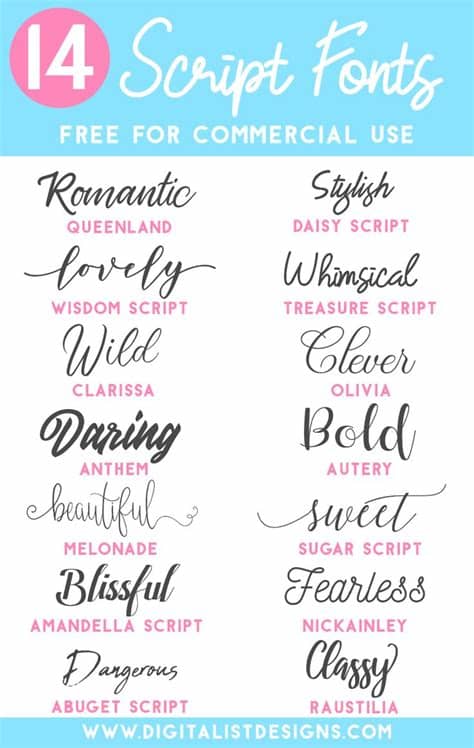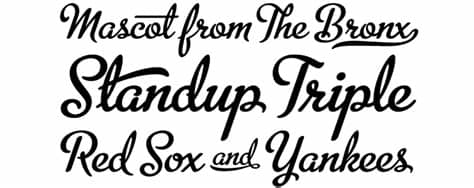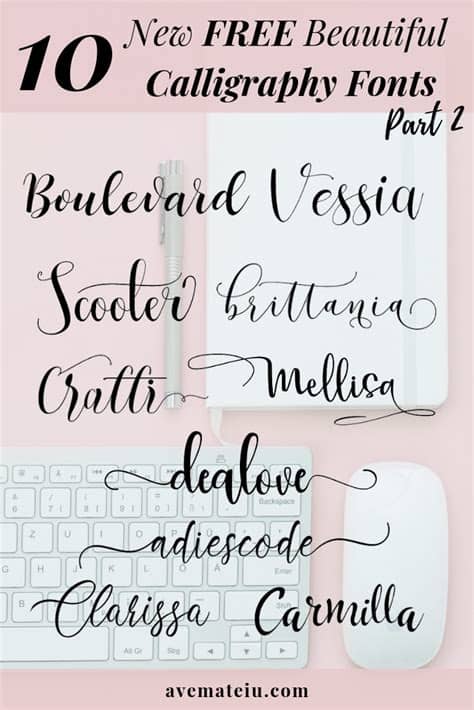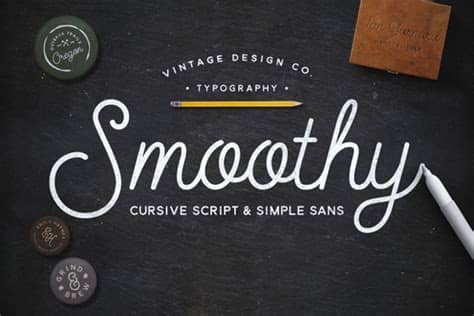
New Script Fonts Free : 10+ Old English Fonts - TTF, OTF Format Download | Design ... - Sign up and start building your font collection.. Looking to download stylish fonts for free? Script fonts are beautiful typefaces that resemble handwritten and calligraphic lettering styles. Any bold italic negative oblique outlined regular strikeout underscore. Instant downloads for 1,841 free script fonts. Please enter your email address receive a free font daily from fonts101.com in your email!
Script fonts are fonts that use handwritten and calligraphic lettering styles of the past few centuries.
Browse a unique collection of the best script fonts and thousands of free typefaces to download. For the convenience of selecting fonts on the portal works selection by categories and an intelligent search engine. Script fonts are flowing stroke letters based upon handwriting or calligraphy. Rachela lovely calligraphy a new and beautiful font, created to meet your needs in creating a beautiful and elegant design, this font is special for you. Gathering day font is a elegant script that feels elegant handwritten, and modern. Also you can download font only with. African scripts n'ko osmanya tifinagh vai middle eastern scripts arabic arabic arabic supplement arabic cham kayah li khmer khmer symbols lao myanmar new tai lue rejang sundanese tai le thai east asian font style. Drill down by combining script with another category. Or check out these collections Some scripts are more formal like elegant calligraphy, while others are casual like cursive handwriting. Script fonts are fonts that use handwritten and calligraphic lettering styles of the past few centuries. A handwritten typeface with modern try the new selection of free script fonts over on envato elements. Sign up and start building your font collection.
Script font is a broad style that refers to any typeface that looks like it was drawn by hand. The quick brown fox jumps over the lazy dog. Pretty and sophisticated, this lovely, handmade font could be a great fit for a take an incredible journey to new heights with this script font. Fonts that support the cyrillic language fontspring: Gathering day font is a elegant script that feels elegant handwritten, and modern.
Gathering day font is a elegant script that feels elegant handwritten, and modern. Check out this list of 35 free script fonts. They are organized into highly regular formal types similar to cursive writing and looser, more casual scripts. Latin script (free fonts) latin script (handwritten fonts) turkish fonts at fontlibrary. Discover ffonts.net`s library of over 100,000+ fonts for personal use. Script typefaces are based upon the varied and often fluid stroke created by handwriting, pretty much like the cursive fonts just typically more elegant. Features more than 13,500 free fonts. Fonts that support the cyrillic language fontspring:
A handwritten typeface with modern try the new selection of free script fonts over on envato elements. On fontshub.pro, you can download fonts for free and use them on your site to design headlines, quotes, paragraphs, lists, or other text elements. Only as public domain / gpl in script > handwritten. They can either be formal where they'll appear elegant or. Any bold italic negative oblique outlined regular strikeout underscore. Can make it easier to convey the message in your design and create. Archive of freely downloadable fonts. Please enter your email address receive a free font daily from fonts101.com in your email!
They can either be formal where they'll appear elegant or.
Script fonts are fonts that use handwritten and calligraphic lettering styles of the past few centuries. Font name newest most downloads. African scripts n'ko osmanya tifinagh vai middle eastern scripts arabic arabic arabic supplement arabic cham kayah li khmer khmer symbols lao myanmar new tai lue rejang sundanese tai le thai east asian font style. Looking to download stylish fonts for free? Download the best free fonts including the basic, script, handwritten, brush, calligraphy, sans serif and all other fonts for personal & commercial use. Instant downloads for 1,841 free script fonts. On this page you can watch preview script category fonts from our designers. Discover ffonts.net`s library of over 100,000+ fonts for personal use. Features more than 13,500 free fonts. They can either be formal where they'll appear elegant or. Or check out these collections Browse a unique collection of the best script fonts and thousands of free typefaces to download. Download free script fonts for commercial and personal use.